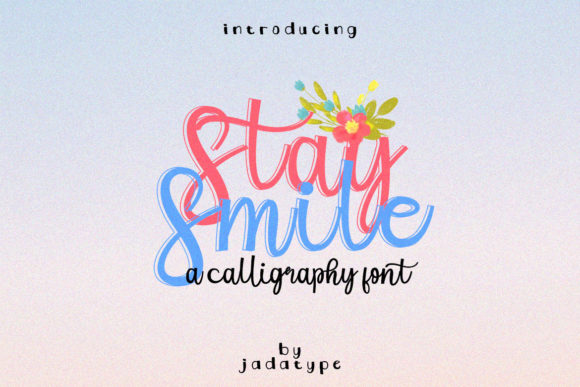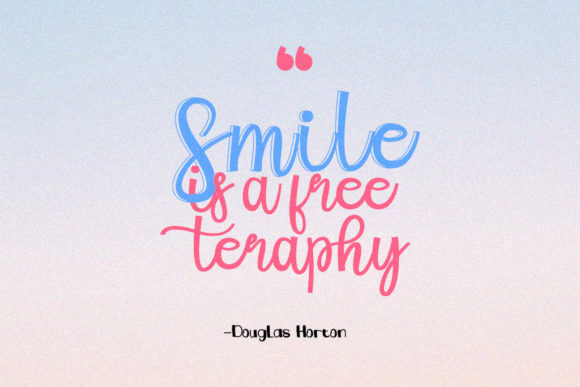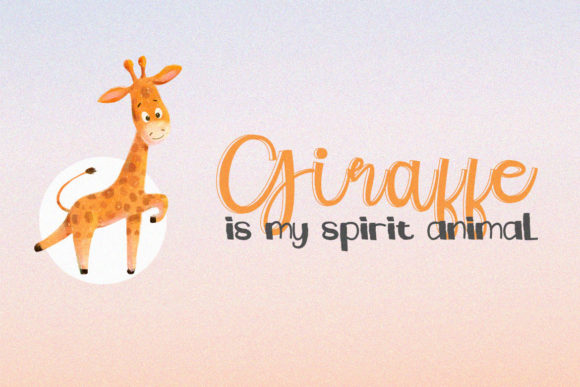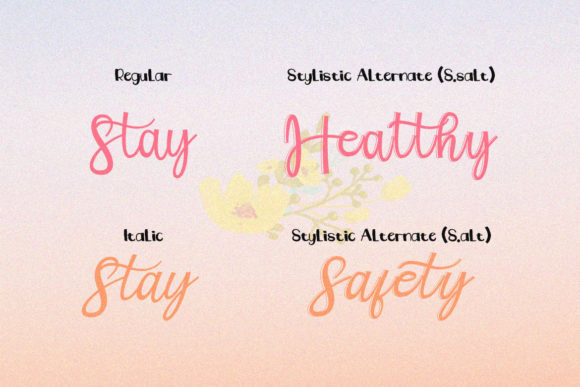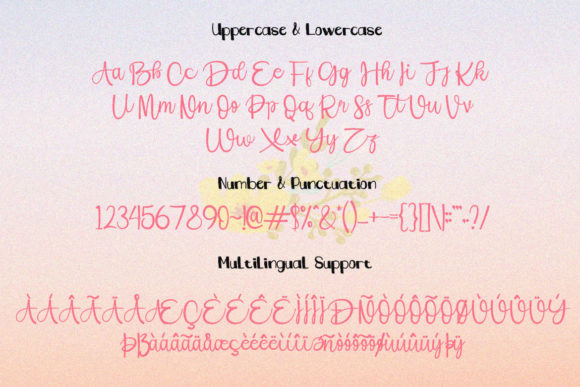
About Stay Smile Font
Stay Smile is a stunning script font that showcases a beautiful balance and smooth curves. It is an ideal choice for fashion branding, editorial designs, and various other creative projects. The font’s PUA encoding allows easy access to all its glyphs and swashes, providing you with greater design flexibility.
With its elegant and well-balanced letterforms, Stay Smile exudes a sense of sophistication and style. The smooth curves and flowing lines create a harmonious visual appeal, making it a perfect fit for fashion-related projects such as logos, clothing labels, and fashion magazines. Its versatility extends beyond fashion, allowing it to elevate editorial designs, invitations, branding materials, and more.
The PUA encoding of Stay Smile ensures effortless access to its extensive range of glyphs and swashes. This feature allows you to add unique flourishes, decorative elements, and alternative characters to your designs, enhancing their visual impact and giving you the freedom to customize and personalize your creations.
Whether you’re working on a high-end fashion campaign, a glamorous editorial spread, or a stylish branding project, Stay Smile will bring an air of elegance and sophistication to your designs. Its timeless appeal and attention to detail make it a reliable choice for creating visually stunning and captivating visuals.
The legibility and readability of Stay Smile make it suitable for both print and digital applications. Its carefully crafted letterforms ensure that your message is effectively communicated to your audience, regardless of the medium. From large-scale signage to digital advertisements, Stay Smile maintains its charm and readability.
Add a touch of elegance and style to your designs with Stay Smile. Its smooth curves, well-balanced letterforms, and extensive glyph options will allow you to create truly captivating and memorable designs. Explore the possibilities of this beautiful script font and let it inspire your creative endeavors.